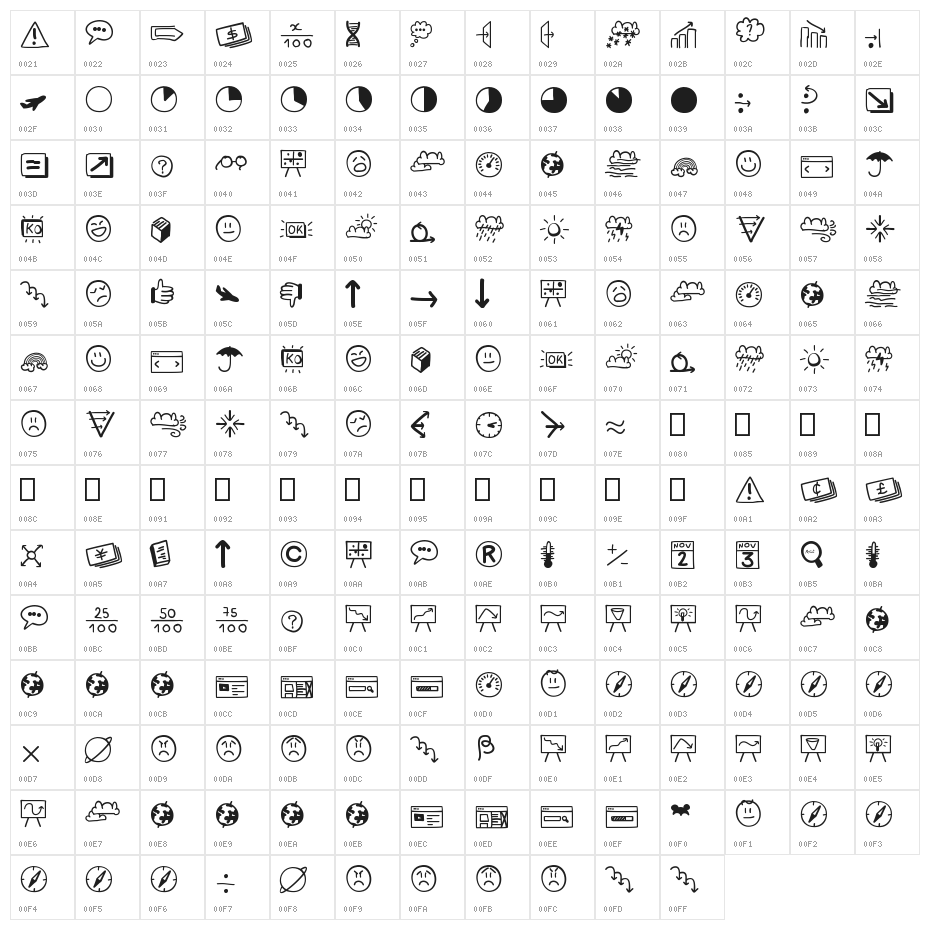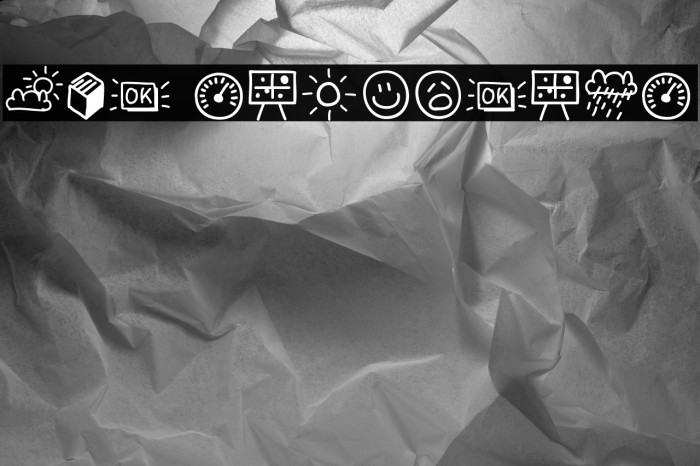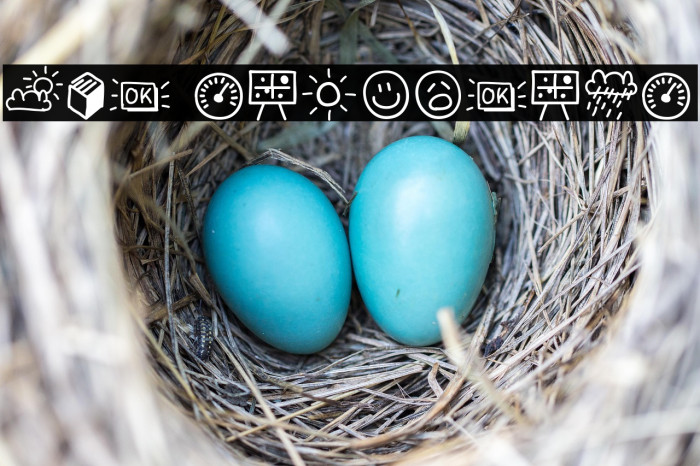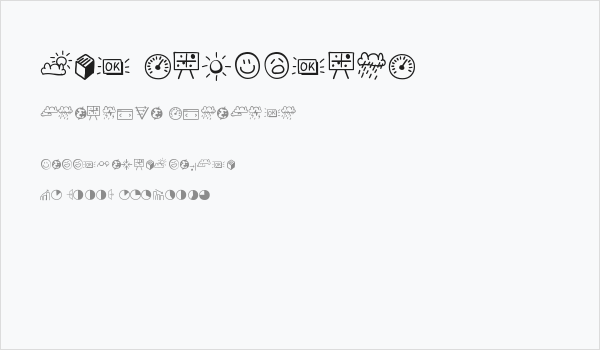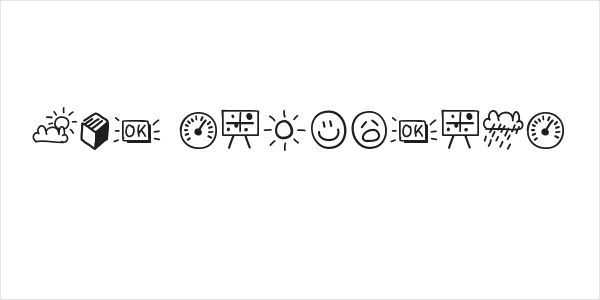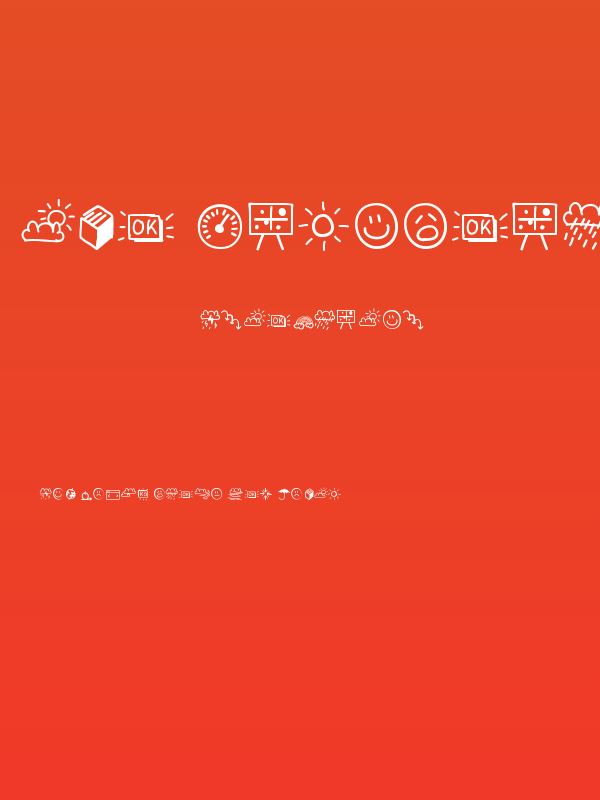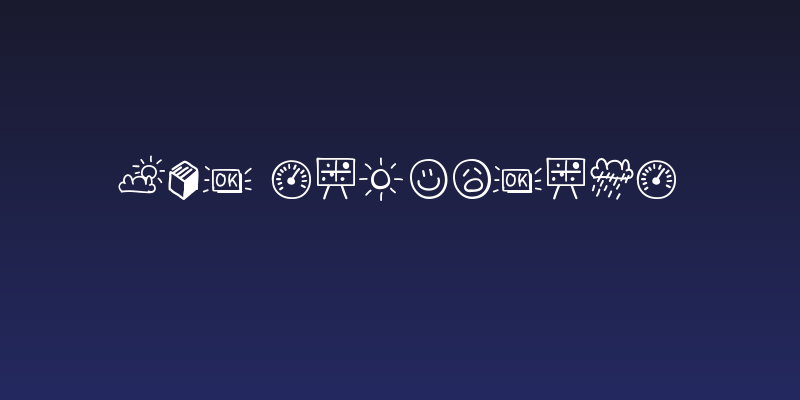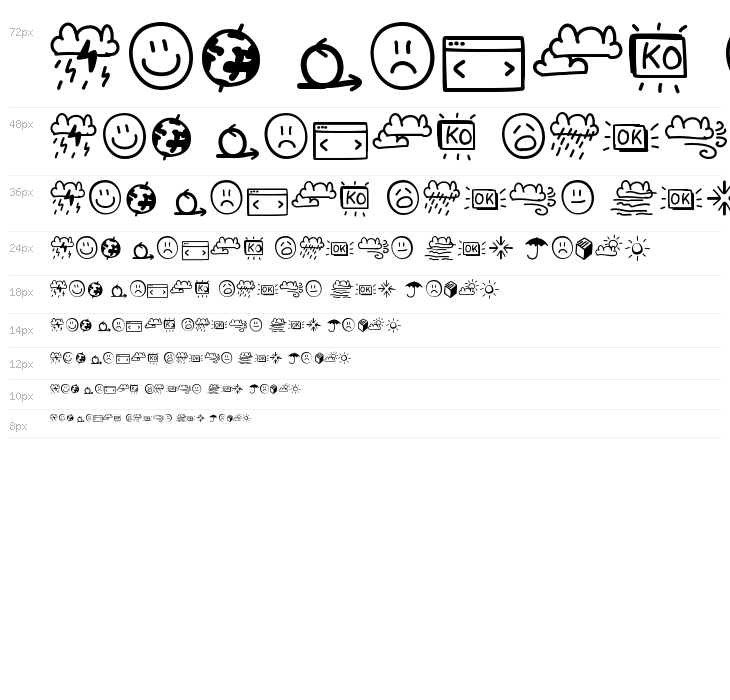
PMO Dashboard Font
PMO Dashboard Description
A playful, hand-drawn icon set featuring weather symbols, emoticons, charts, and dashboard-related graphics. The icons are outlined with consistent stroke thickness, rounded corners, and a casual, informal style, making them approachable and easy to interpret.
| Overall Style | Decorative, Playful, Hand-drawn |
| Use Case | Icons for dashboards, infographics, and presentations. |
| Proposed Projects | Dashboards, infographics, presentations, educational materials, weather apps, project management tools. |